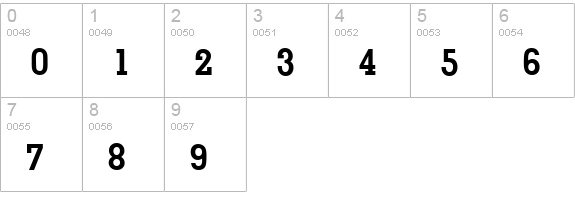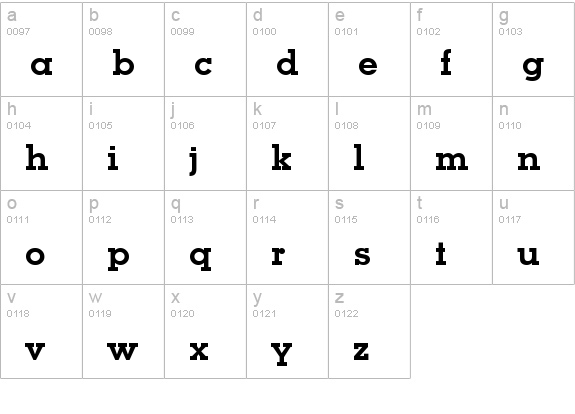
Missouri-Medium-Regular Font Details
Missouri-Medium-Regular is a balanced, medium-weight variant in the Missouri typeface family \xE2\x80\x94 well suited to sub-headlines, navigation, and balanced editorial work.
Missouri-Medium-Regular font is a versatile and modern typeface that exudes elegance and sophistication. With its clean lines and balanced proportions, this font is perfect for a wide range of design projects, from branding to editorial design. The medium weight strikes the perfect balance between boldness and readability, making it ideal for both headlines and body text. What sets Missouri-Medium-Regular font apart is that it is freely available to download at FontsMarket.com. This means that you can easily access this high-quality font without any cost, making it a valuable addition to your font library. Whether you're a designer looking for a reliable go-to font or a business owner in need of a professional typeface for your marketing materials, Missouri-Medium-Regular font is sure to meet your needs with its timeless appeal and exceptional legibility. Elevate your designs with this versatile and stylish font today!